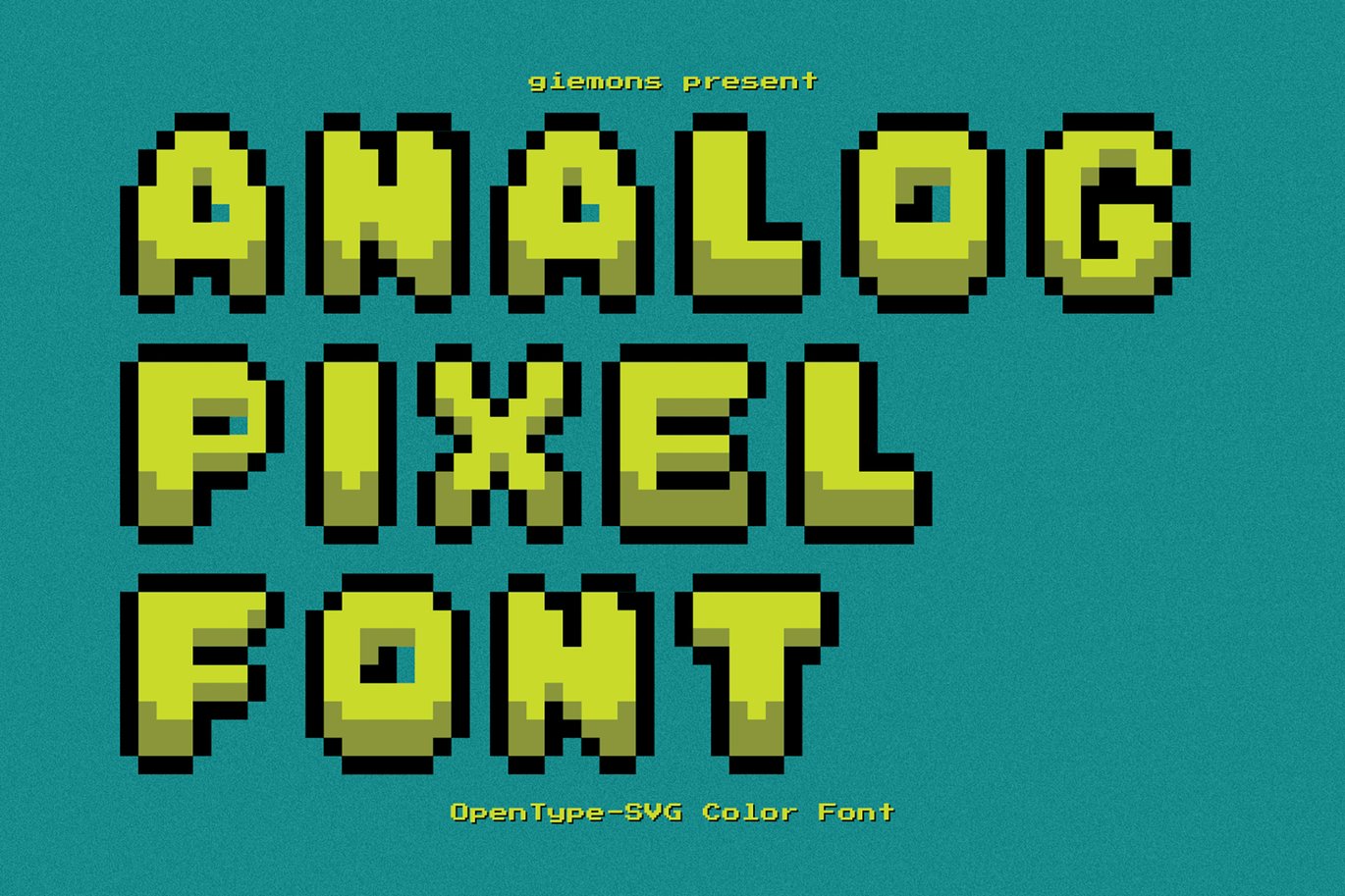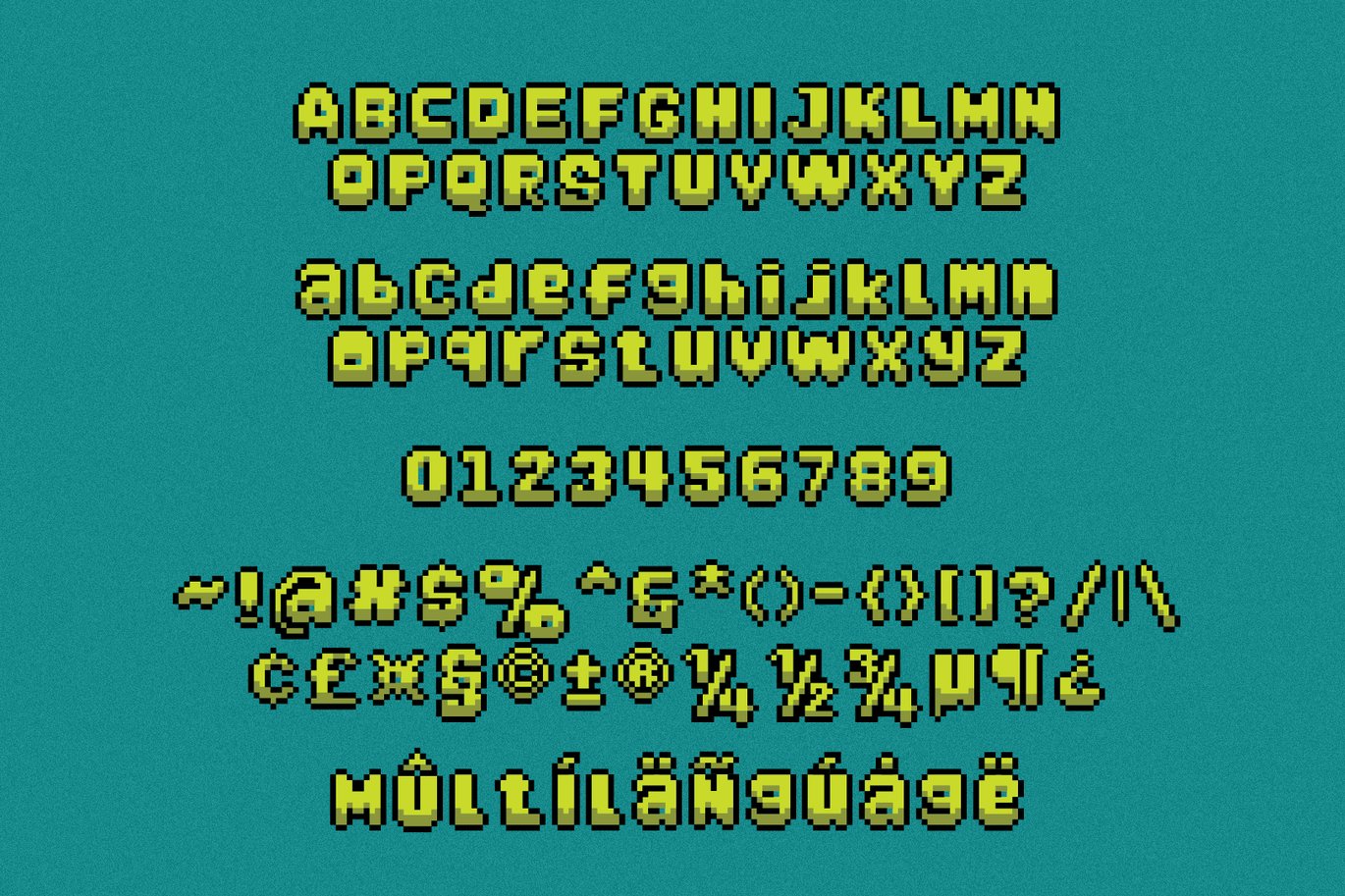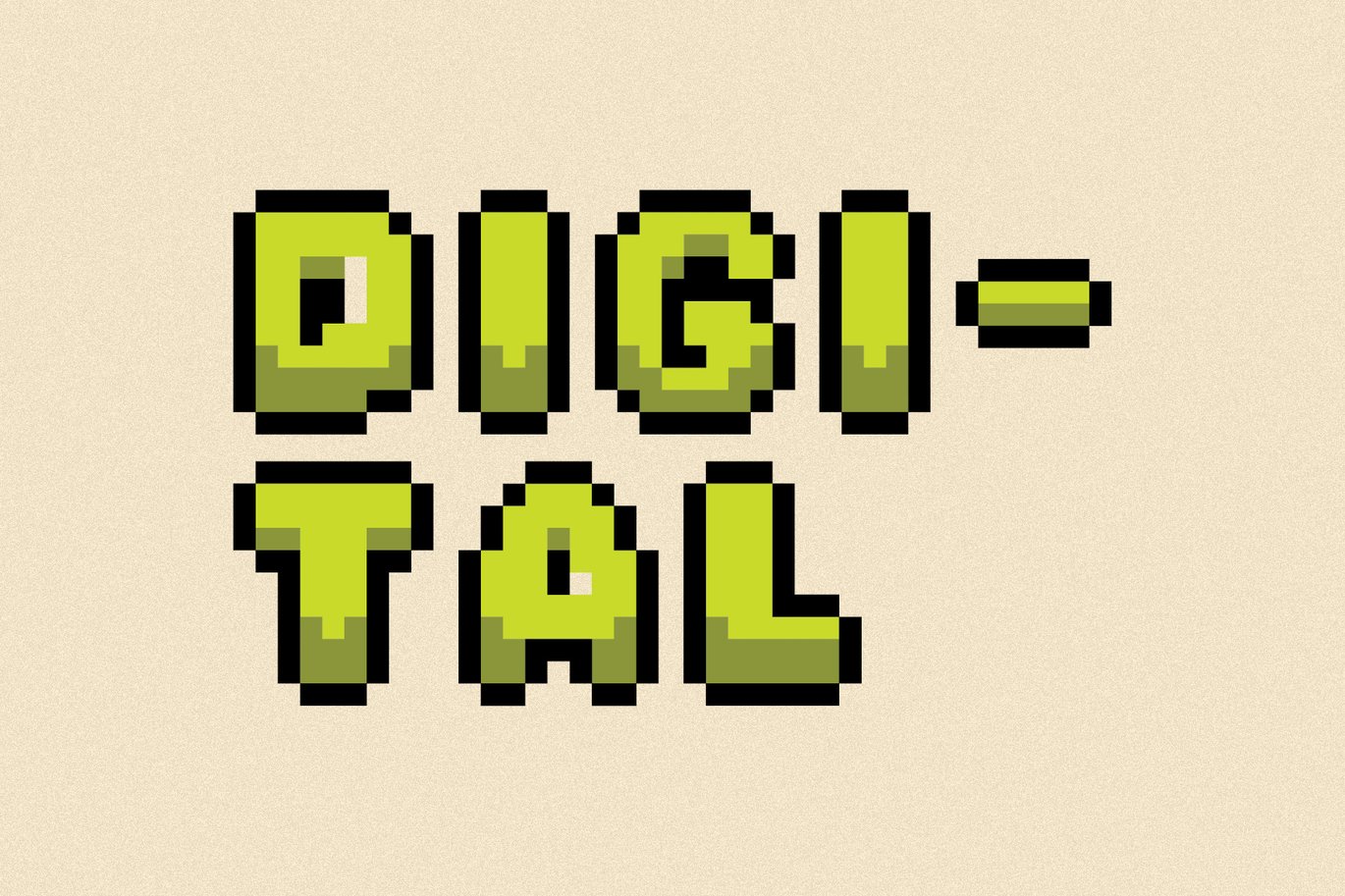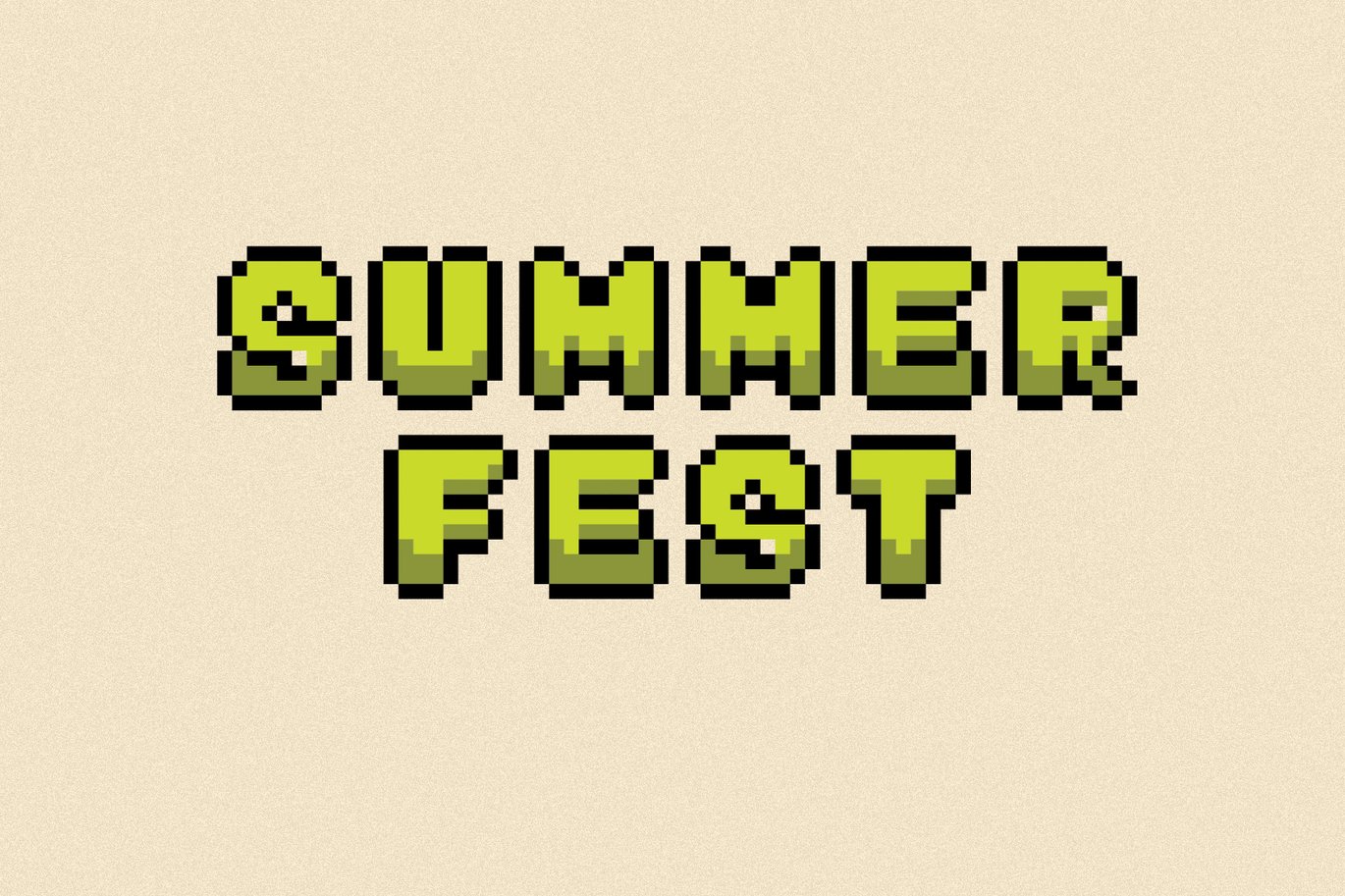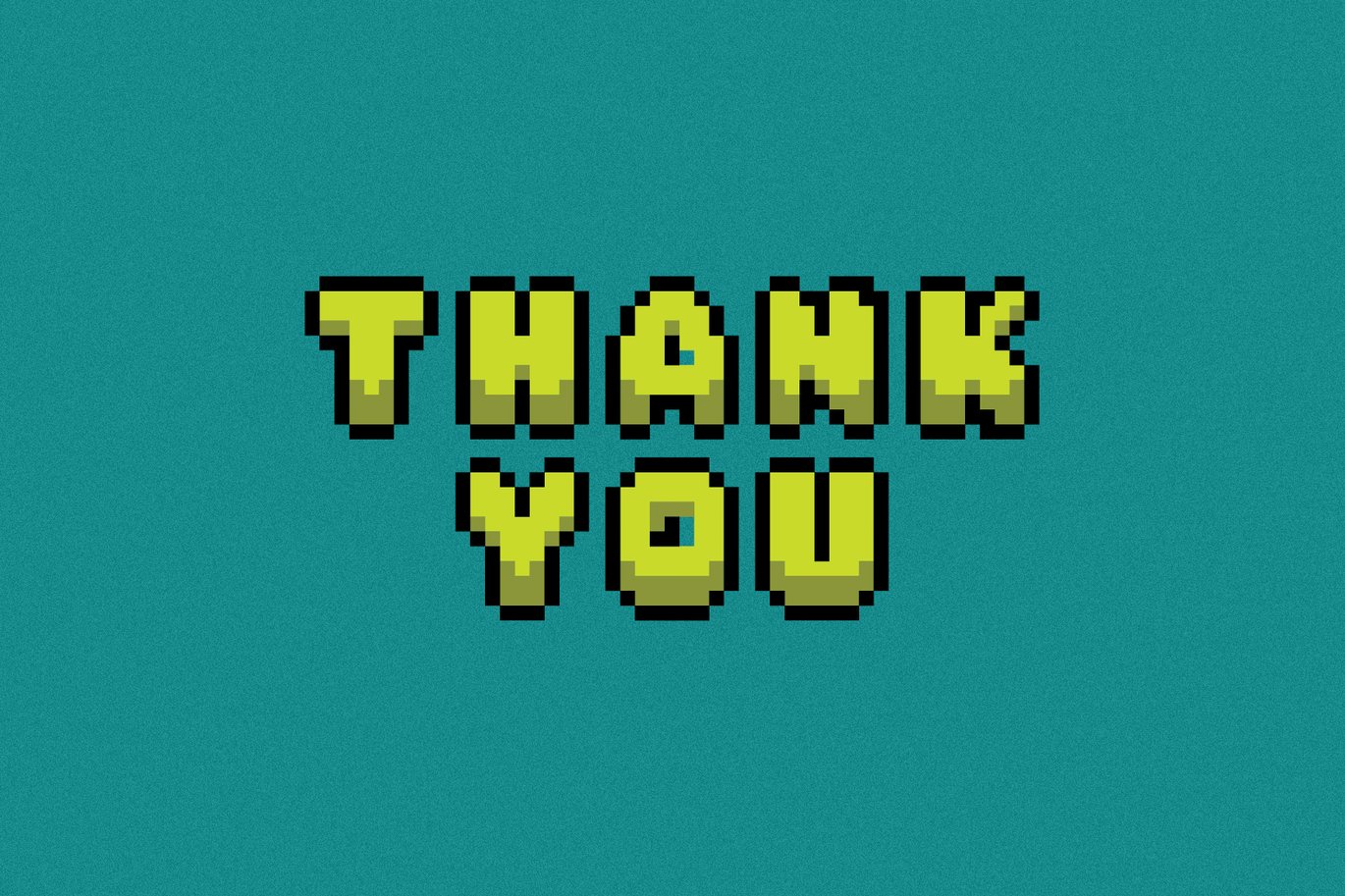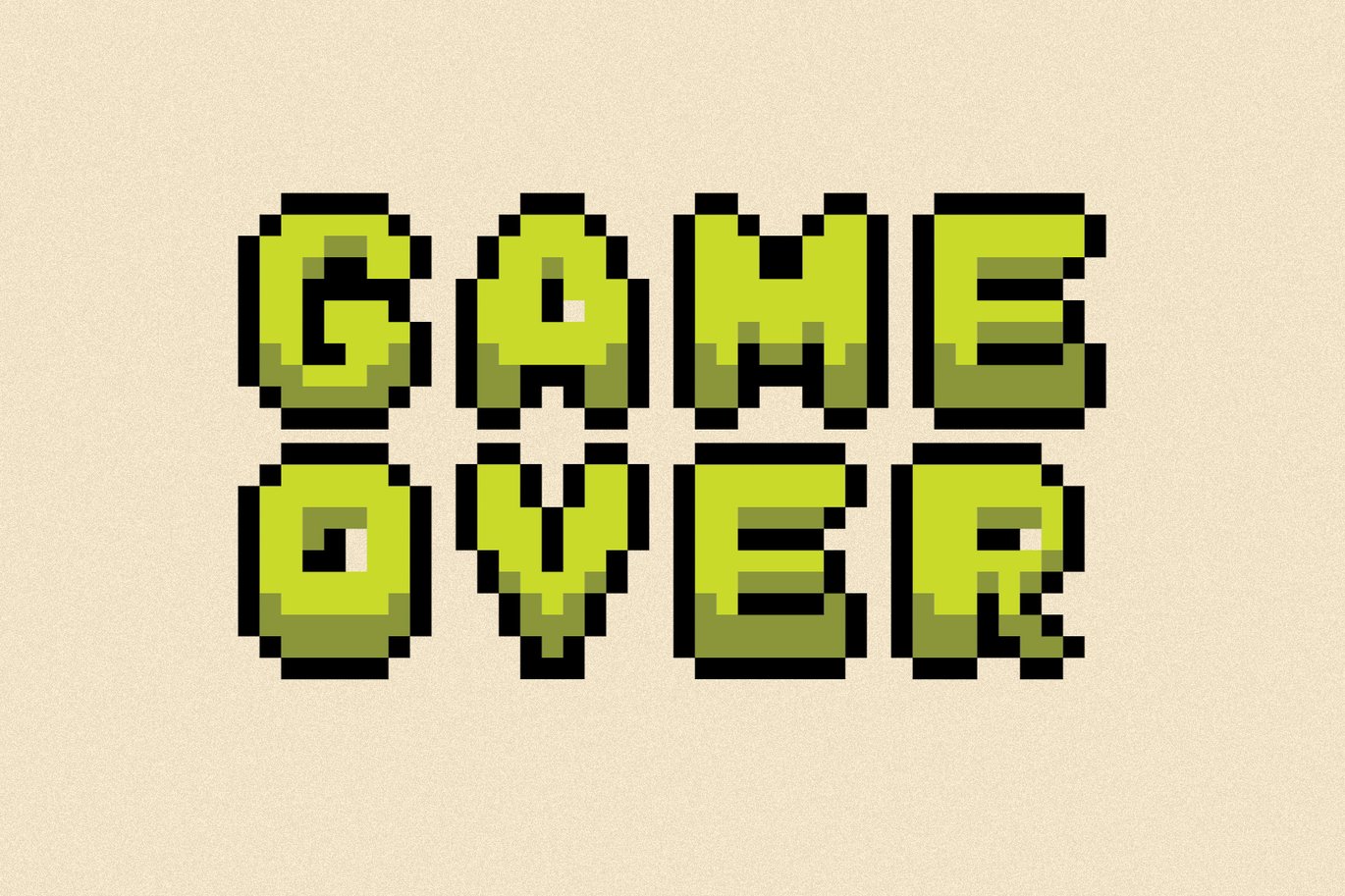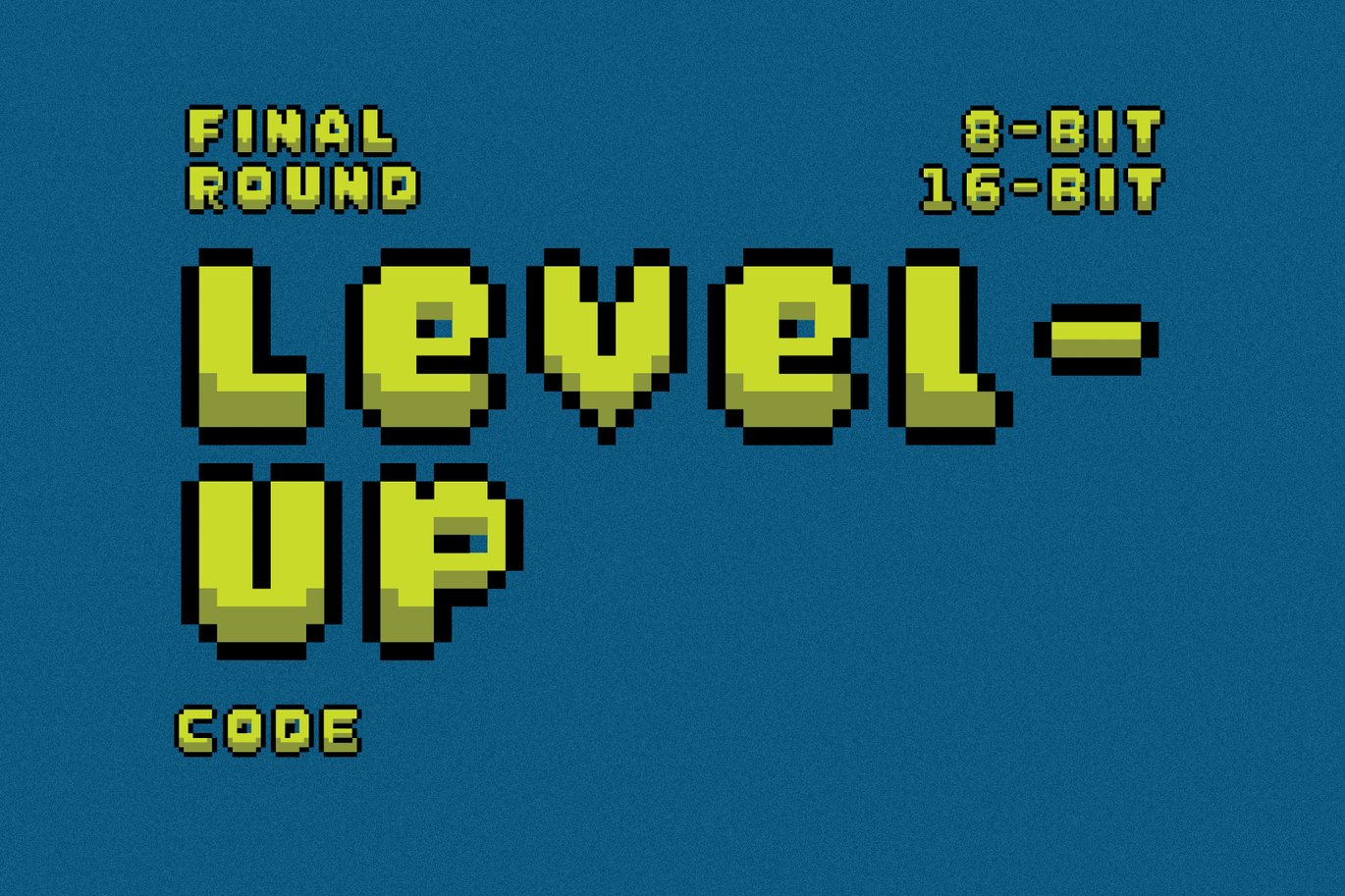
Analog Pixel – SVG Font
ANALOG PIXEL FONT by GIEMONS
a ANALOG PIXEL is SVG Font. Can make it easier to convey the message in your design. Use for awesome display, Logo, labeling, clothing, movie sceen, poster, movie title, gigs, album covers, logos, and much more. Color fonts based on vector glyphs can be resized without any loss, just like any regular font.